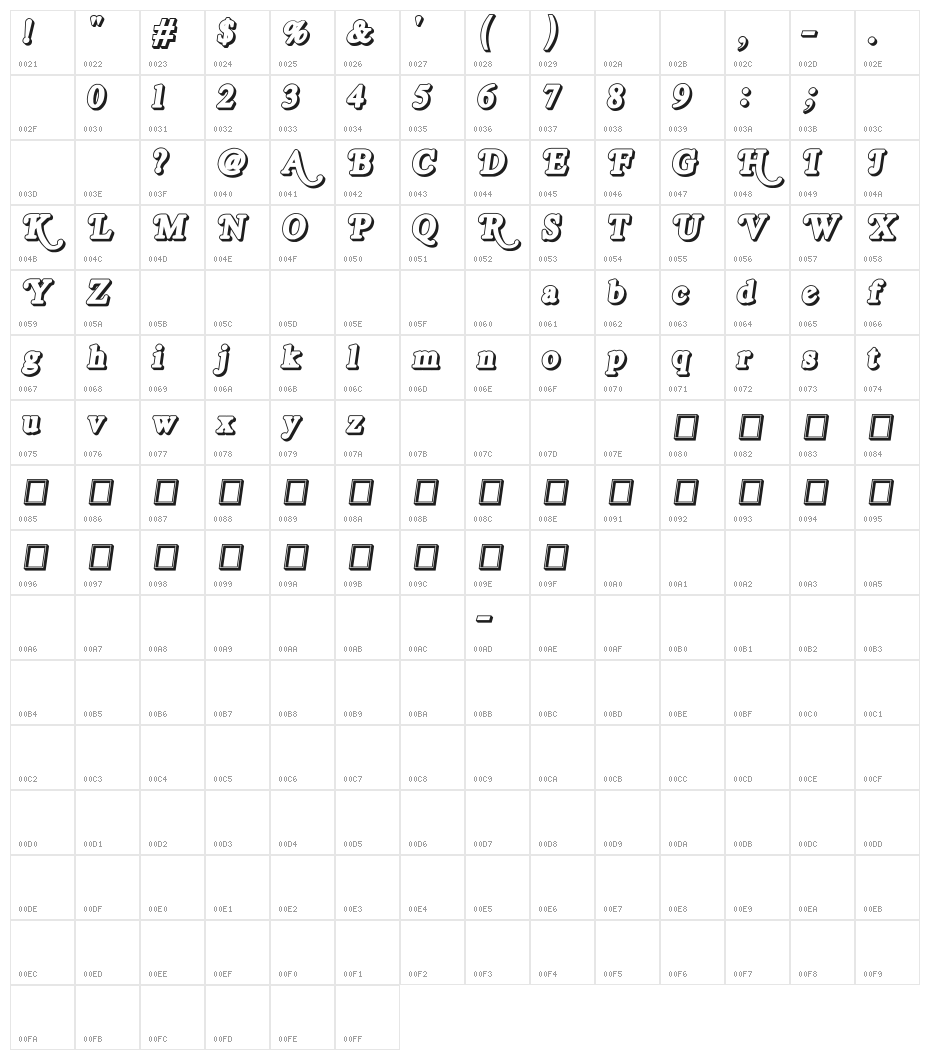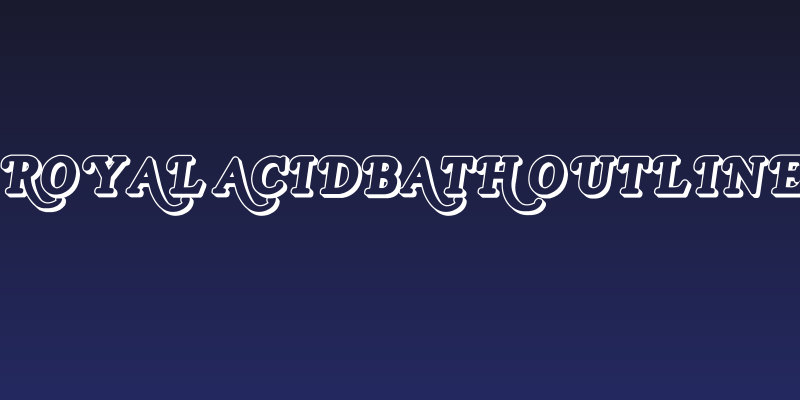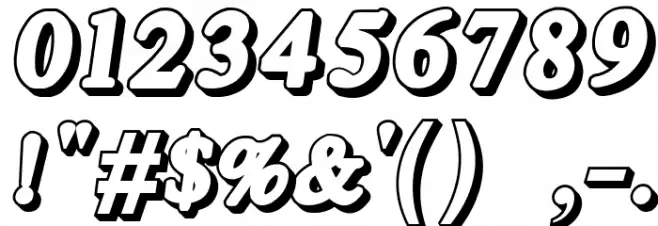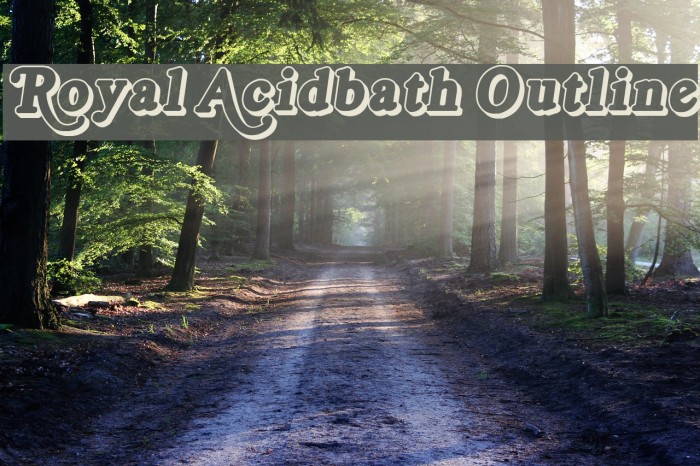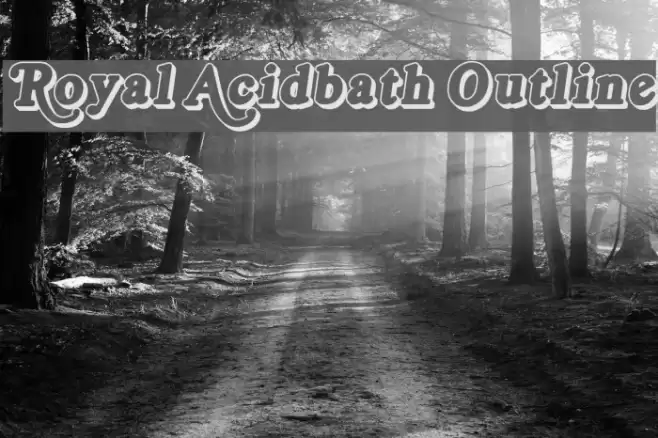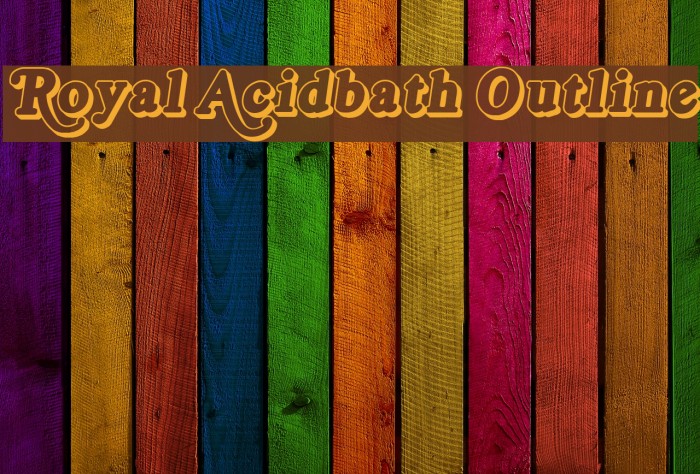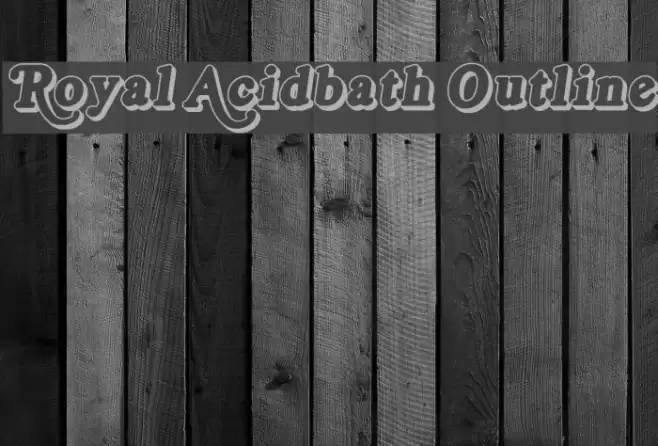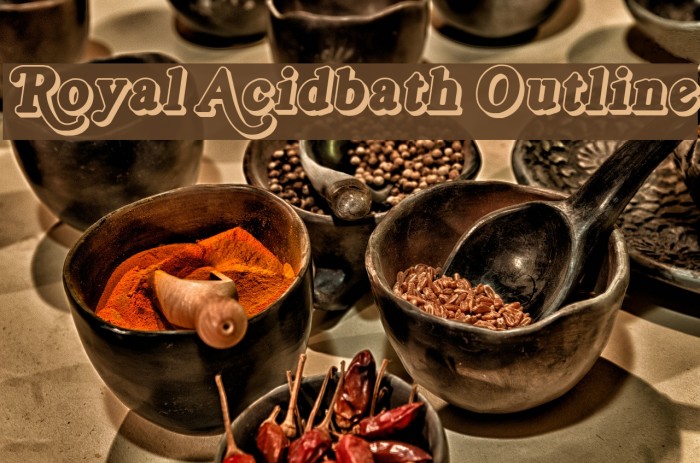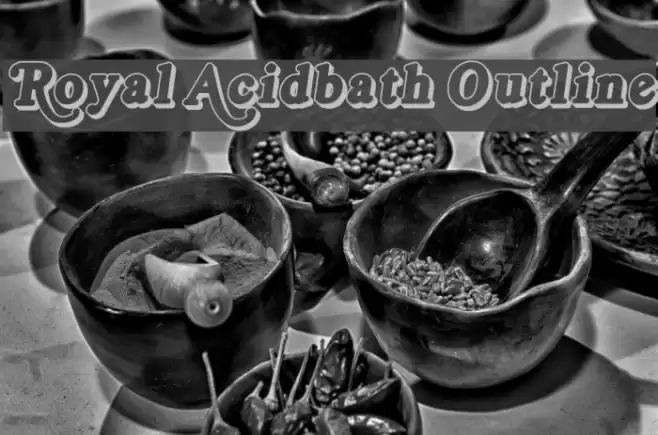
Royal Acidbath Outline Font
Royal Acidbath Outline Description
This font features a bold and playful outline style, characterized by its thick, shadowed edges that create a three-dimensional effect. The letters are slightly condensed, with a whimsical flair that adds a touch of fun and creativity. The uppercase and lowercase letters maintain a consistent style, with smooth curves and rounded edges. Numbers and special characters are designed to match the playful aesthetic, making them stand out with their bold outlines. The overall design is eye-catching and suitable for projects that require a unique and engaging visual impact.
| Width | Condensed |
| Overall Style | Playful, Creative |
| Proposed Projects | Ideal for posters, logos, children's books, and creative branding projects. |